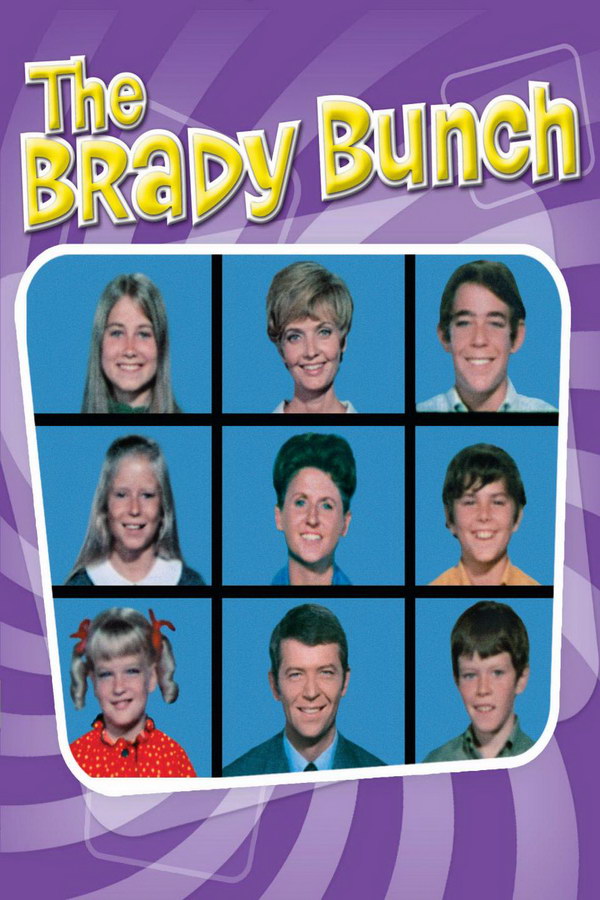
Brady Bunch Font
The TV series logo features a font that closely resembles the Brady Bunch font created by Insanitype. The font is available in uppercase and lowercase, with punctuation marks and diacritical letters, and can be downloaded for free from the Fonts Used Section.